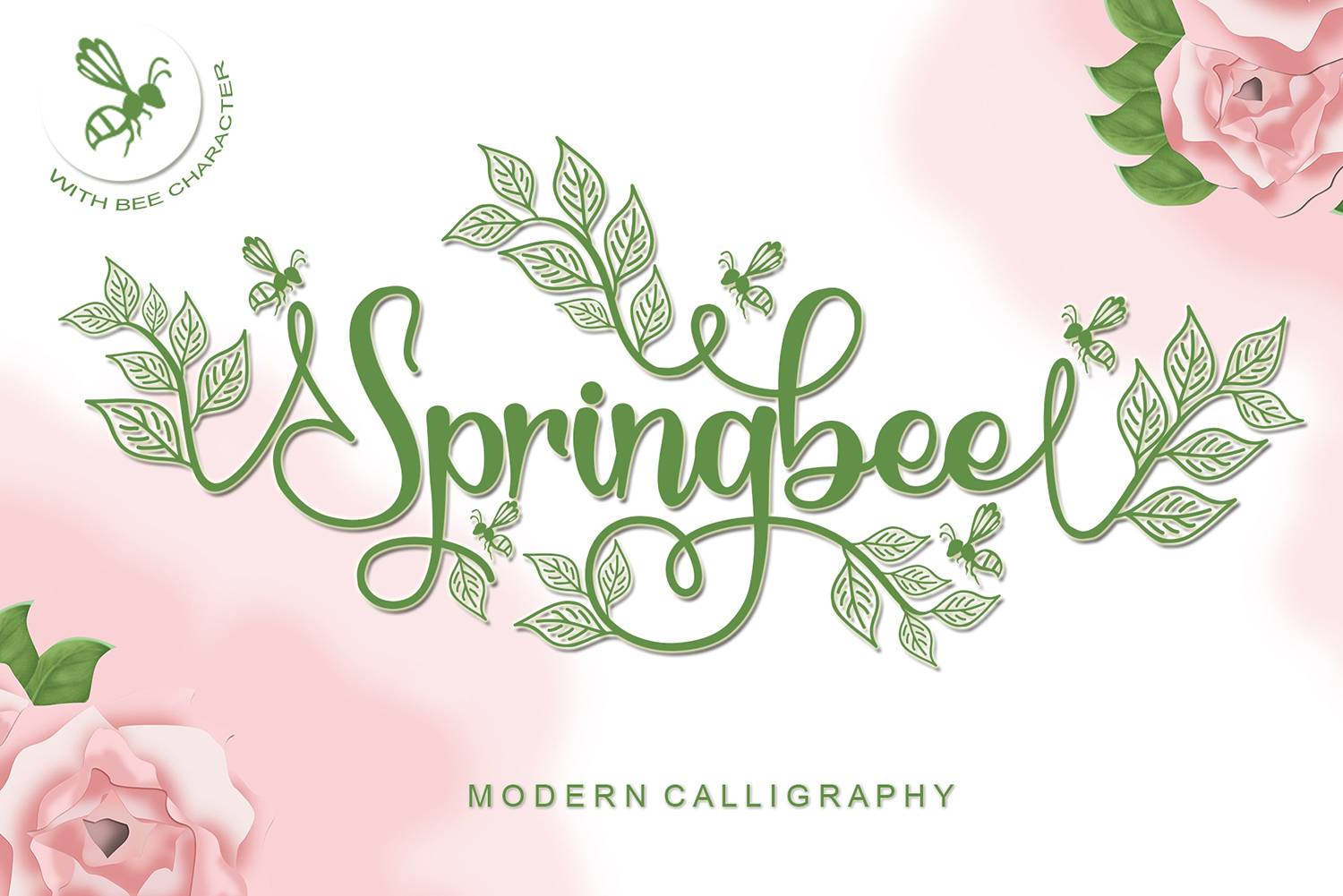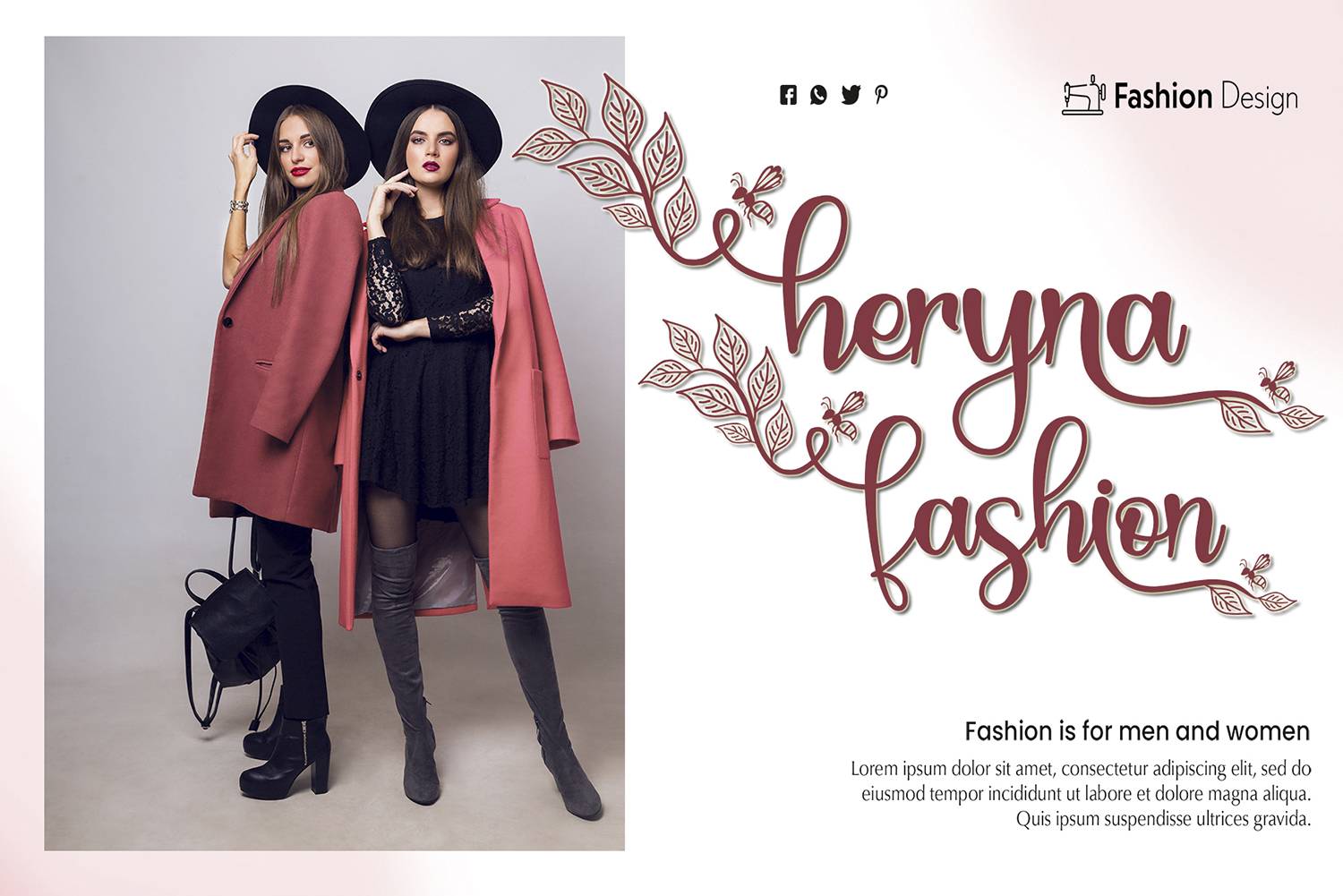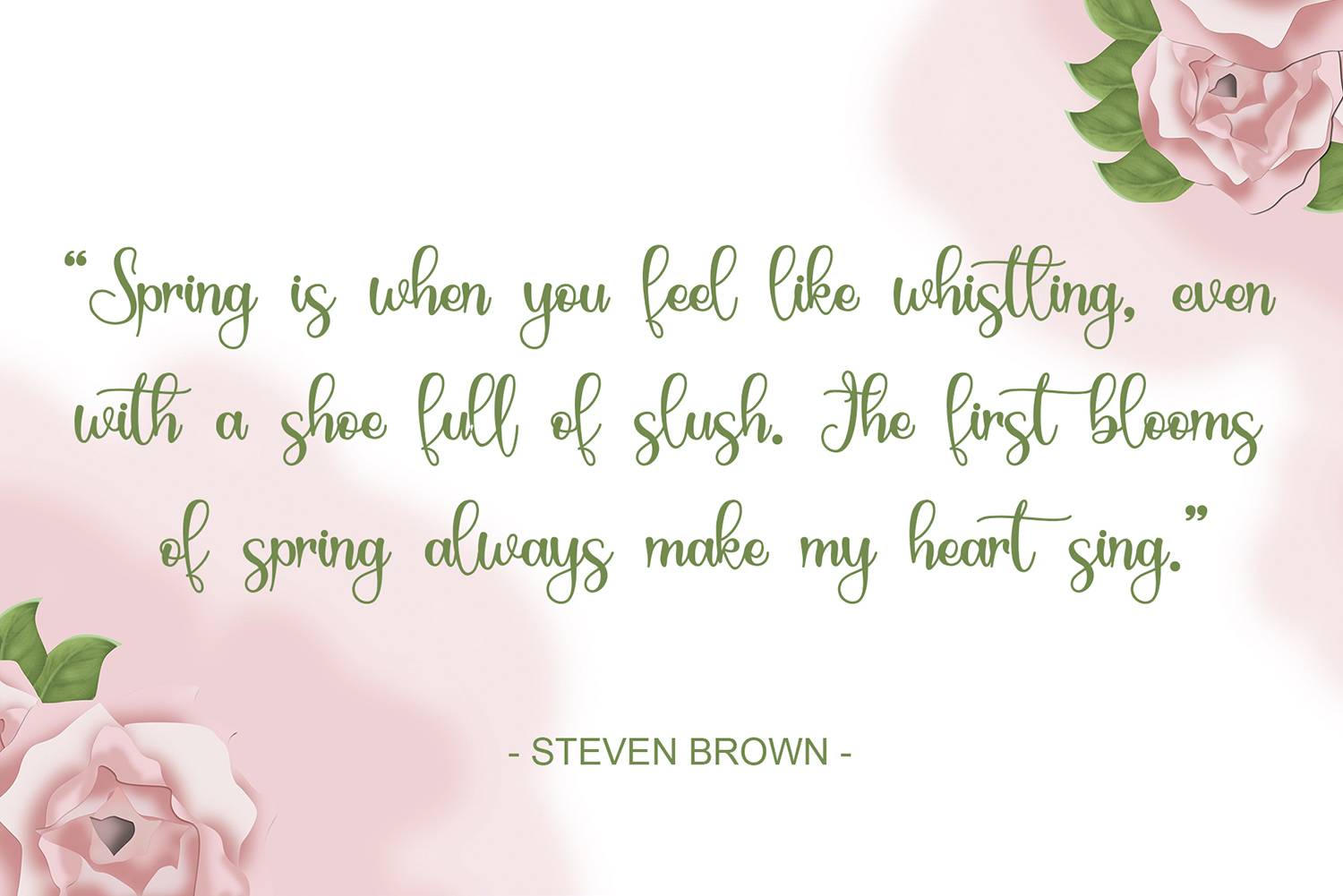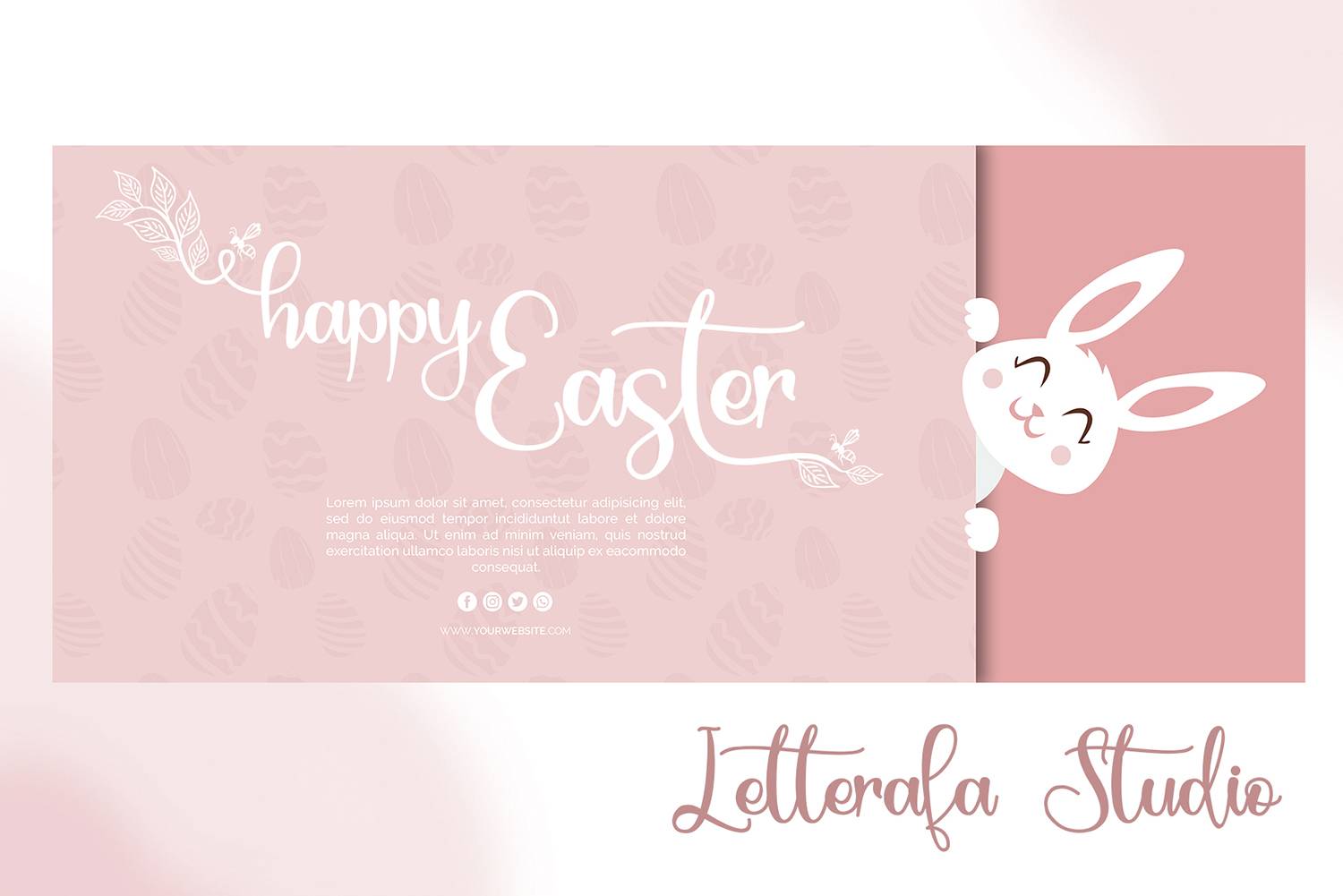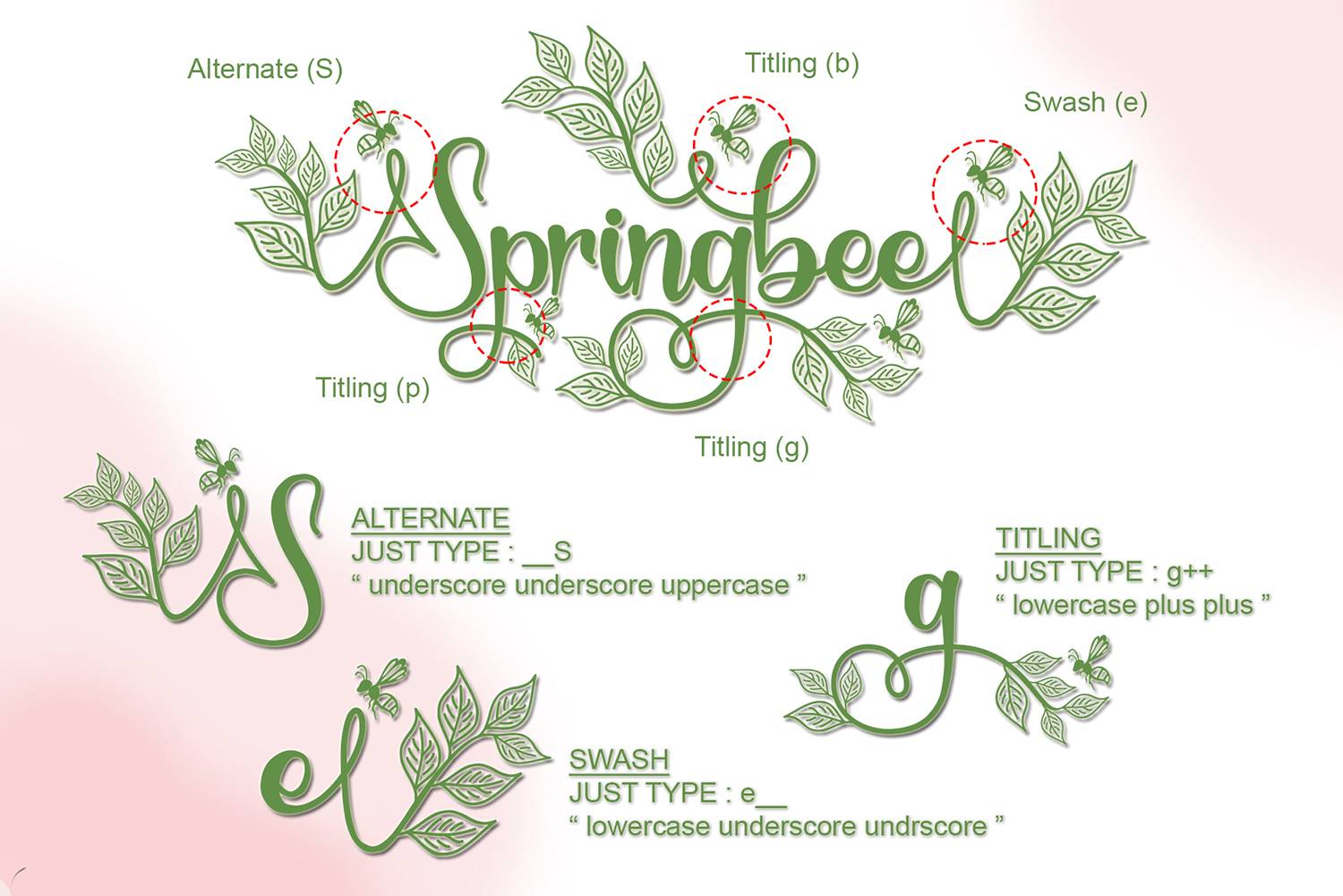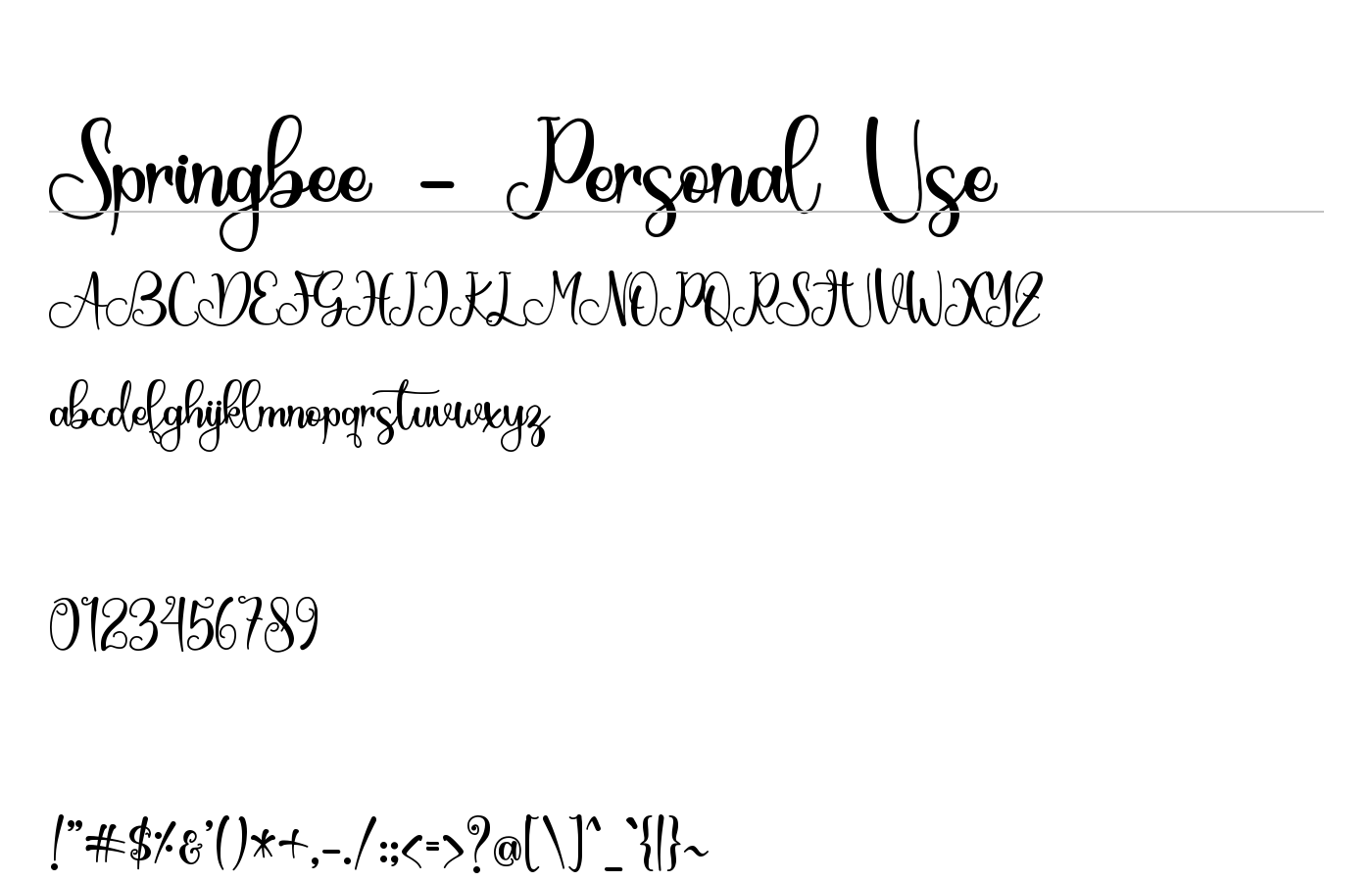
Springbee is a playful and elegant script font featuring thin, flowing strokes with delicate swirls and loops that give it a handmade, whimsical feel. Its tall, narrow letterforms with charming flourishes make it ideal for creative projects such as invitations, branding, and decorative headlines where a personal, artistic touch is desired.
| Font family | Springbee Font |
| Designer | Ahmad Afandi |